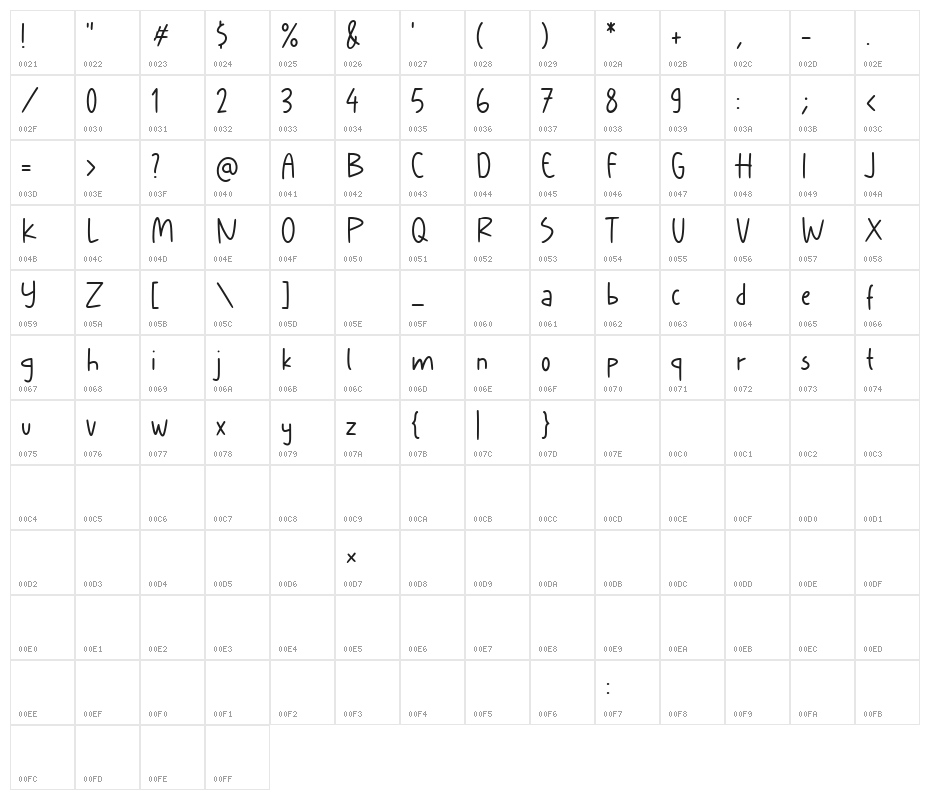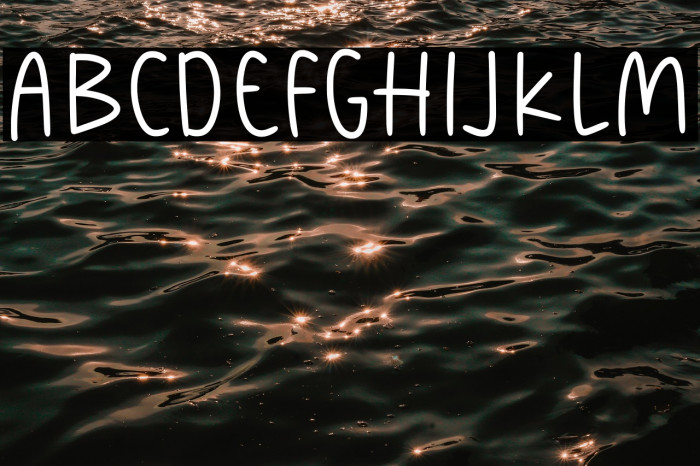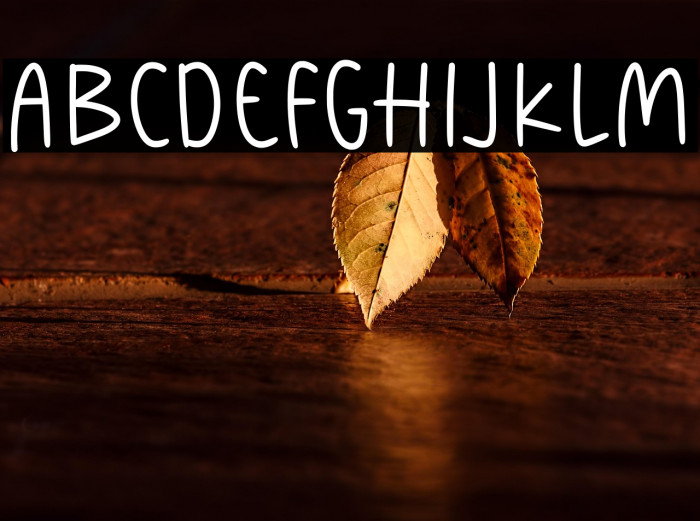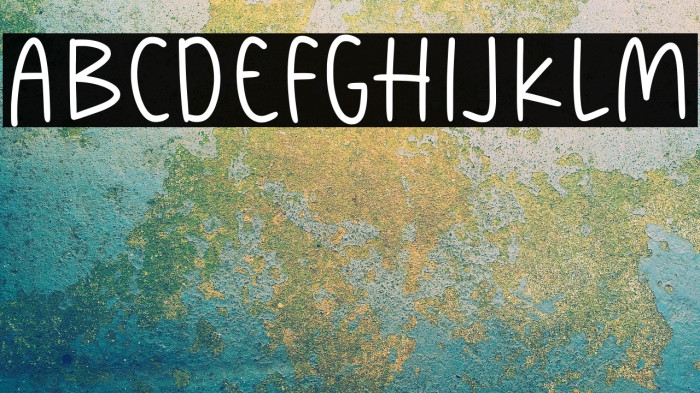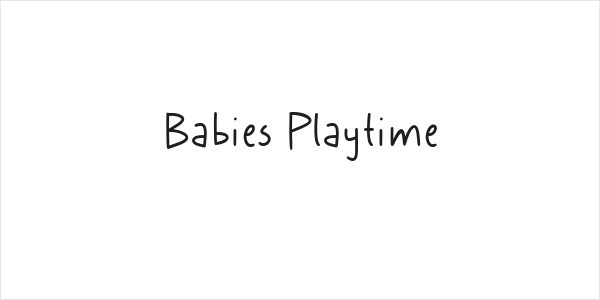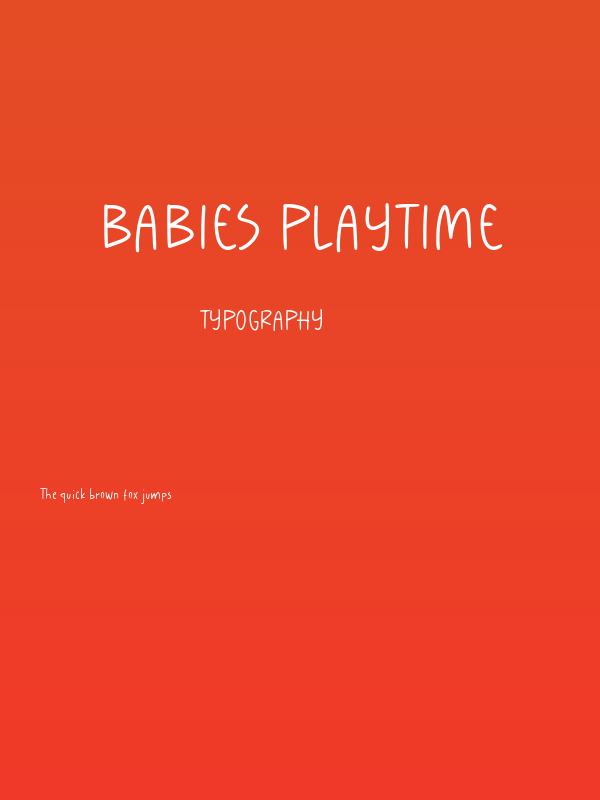
Babies Playtime Font
Babies Playtime Description
A playful, handwritten font with a casual and friendly appearance. The letters are slightly irregular, adding to its charm and approachability.
| Use Case | Headlines, Informal text, Children's materials |
| Proposed Projects | Children's books, playful branding, casual invitations. |